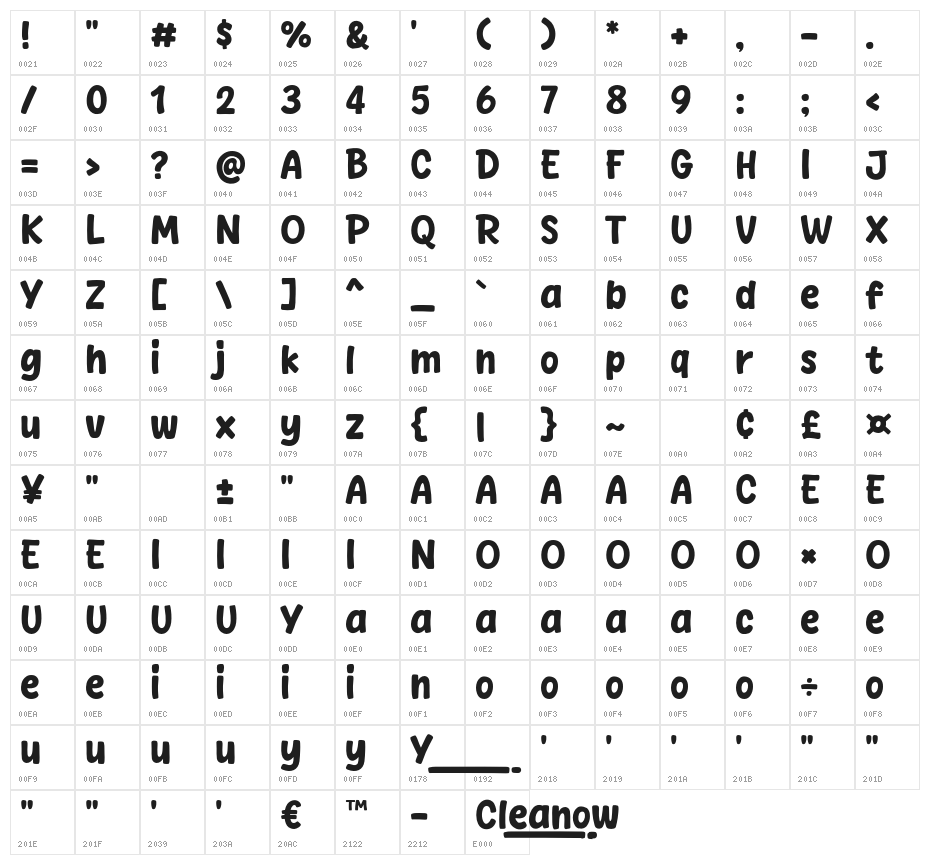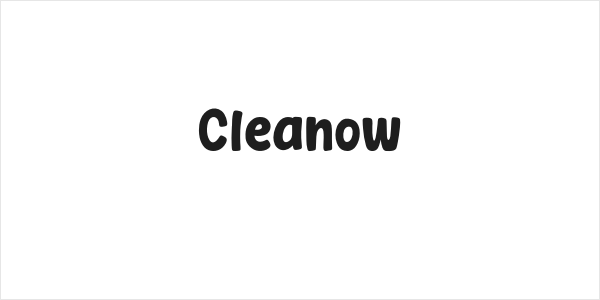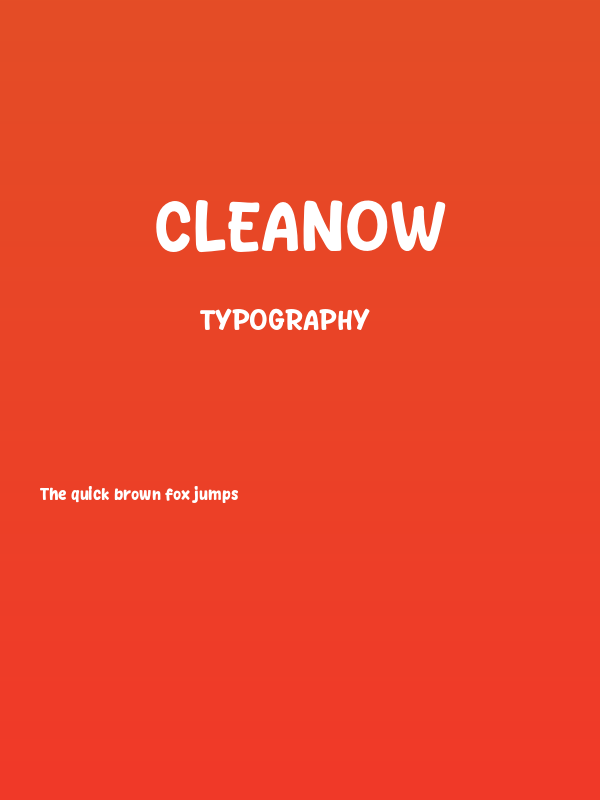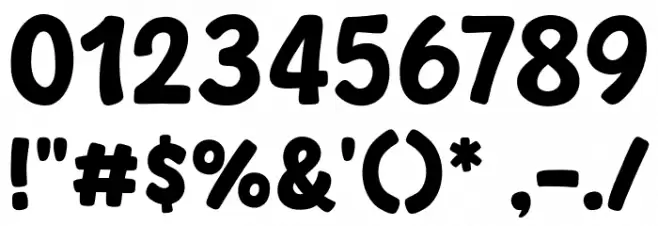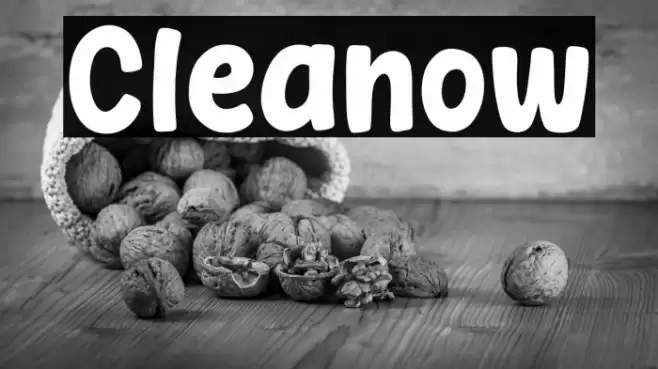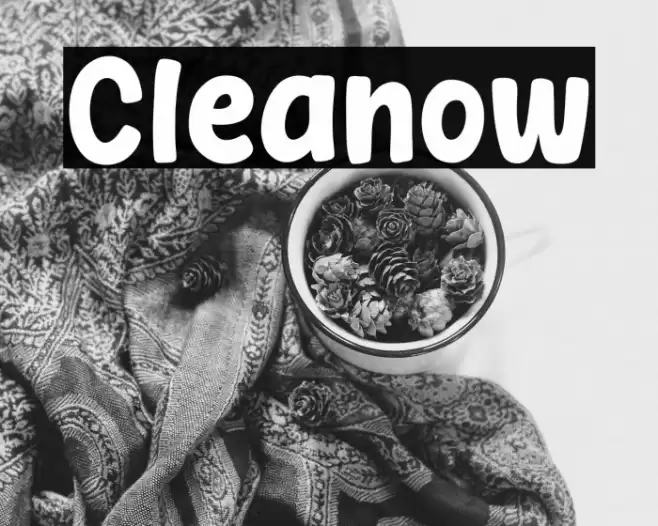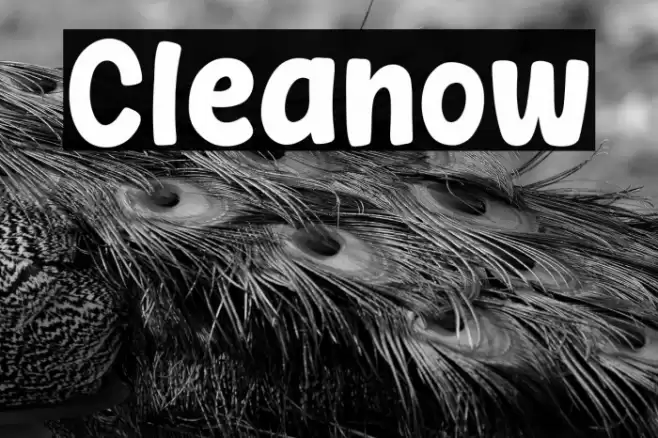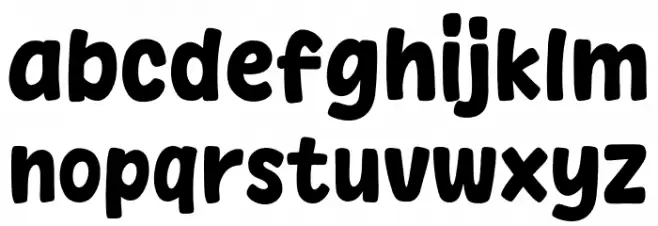
Cleanow Font
Cleanow Description
This font features a playful and bold style with rounded edges and a slightly uneven baseline, giving it a hand-drawn appearance. The characters are thick and substantial, providing a strong visual impact. The uppercase and lowercase letters maintain a consistent style, with the lowercase letters being slightly more compact. Numbers and special characters follow the same bold and rounded design, ensuring uniformity across all glyphs. The font's informal and friendly look makes it suitable for casual and creative projects.
| Overall Style | Playful |
| Proposed Projects | Ideal for children's books, playful branding, posters, and social media graphics. |